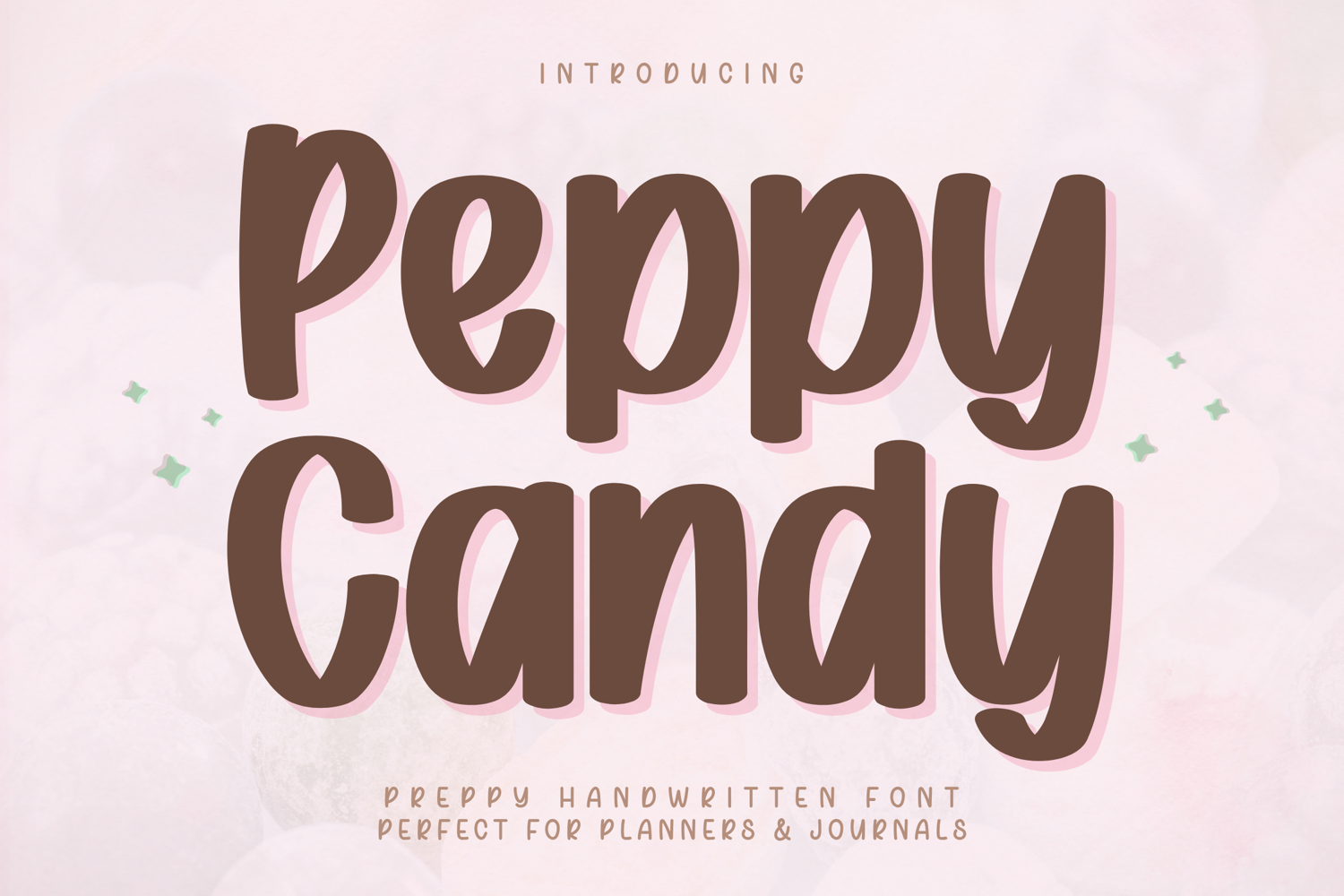
Peppy Candy - Preppy Handwritten Font
Peppy Candy – Preppy Handwritten Font
Peppy Candy is a cute and playful handwritten font designed to bring a sweet and energetic preppy vibe to your creative projects. With its smooth curves and rounded letterforms, this font creates a friendly handwritten style while maintaining excellent clarity and readability.
Carefully crafted for versatility, Peppy Candy performs beautifully across a wide range of applications—from digital planners and journals to Cricut projects, stickers, branding, and social media design. Its clean and consistent strokes ensure smooth results for both writing and cutting, making it perfect for everyday creative use.
Peppy Candy is designed with smooth, rounded strokes and balanced spacing, making it easy to read and comfortable for everyday use.